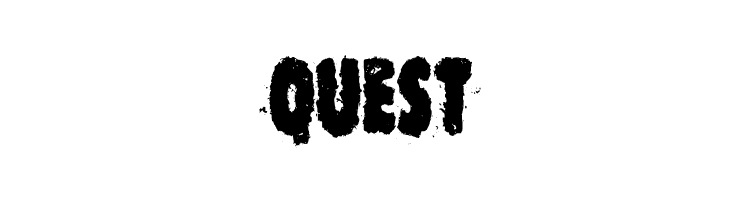
ElectorateBoogaloo-Regular Font
- Font: ElectorateBoogaloo-Regular
( Fonts by Mr Fisk - Mike Larsson - fontorama.net )
A bold, distressed font with a grungy, textured appearance.